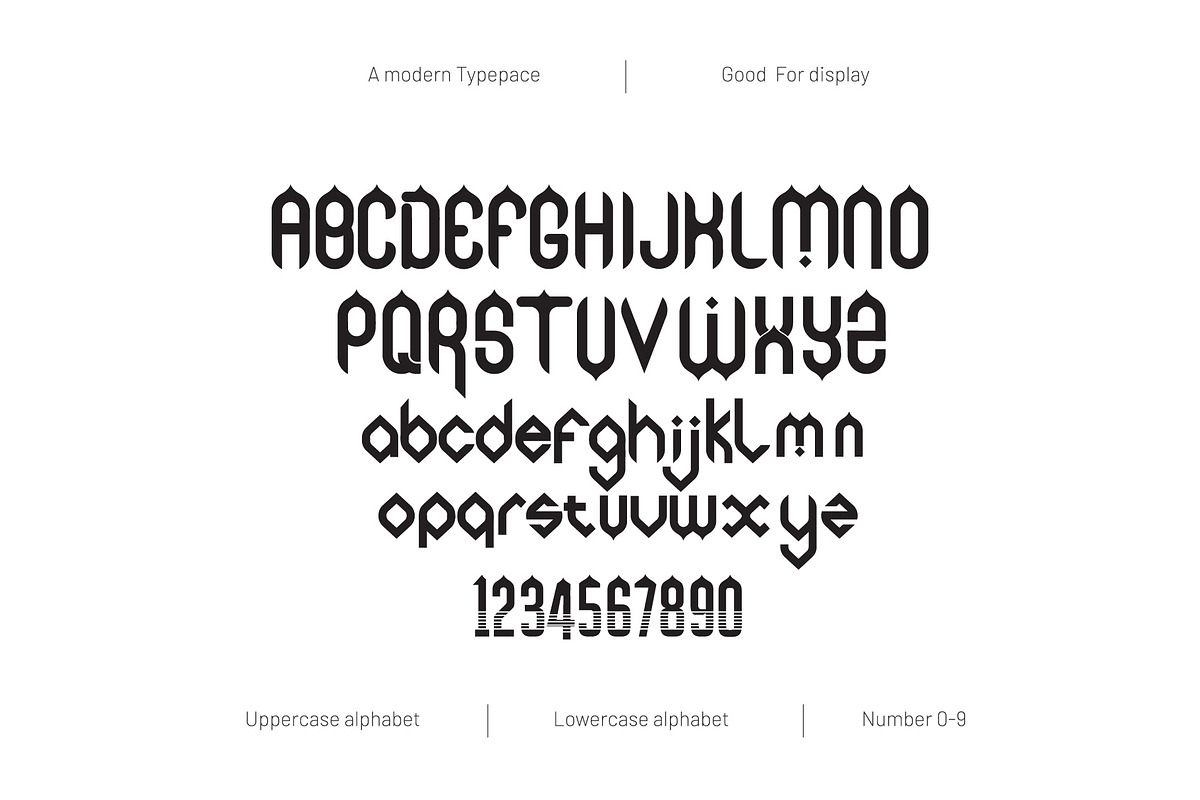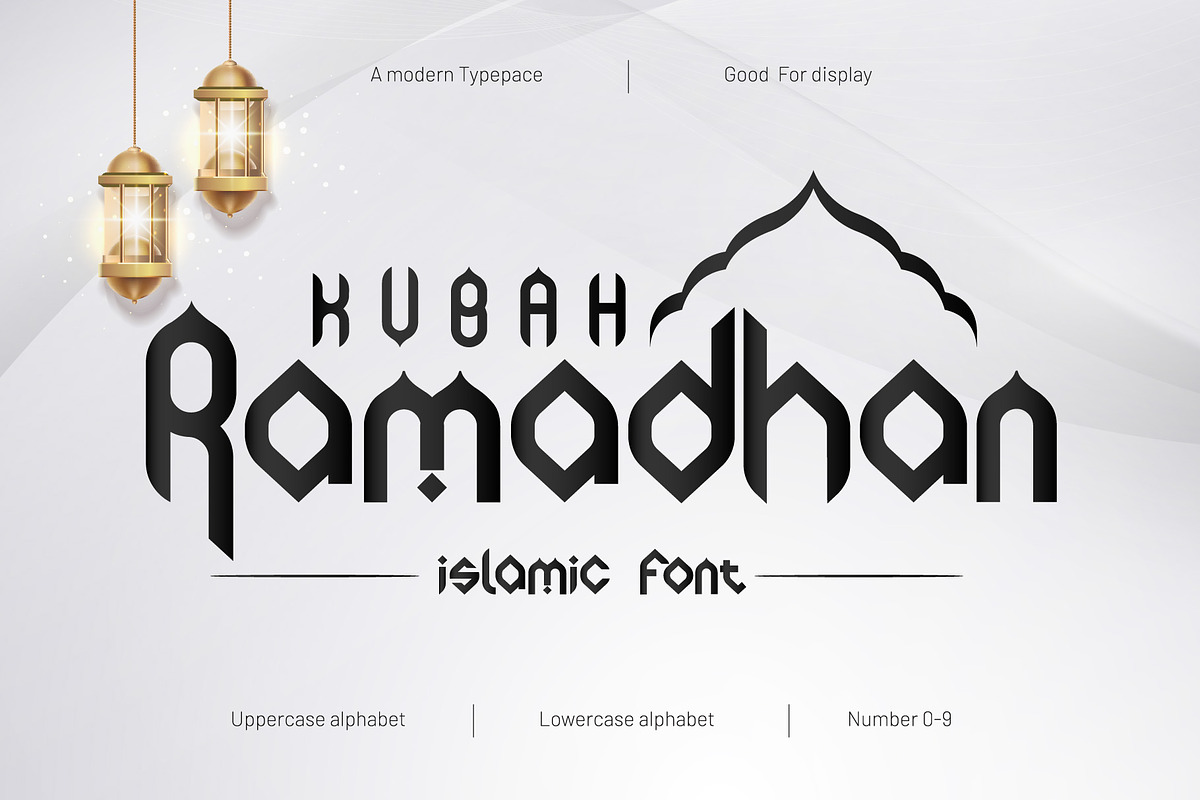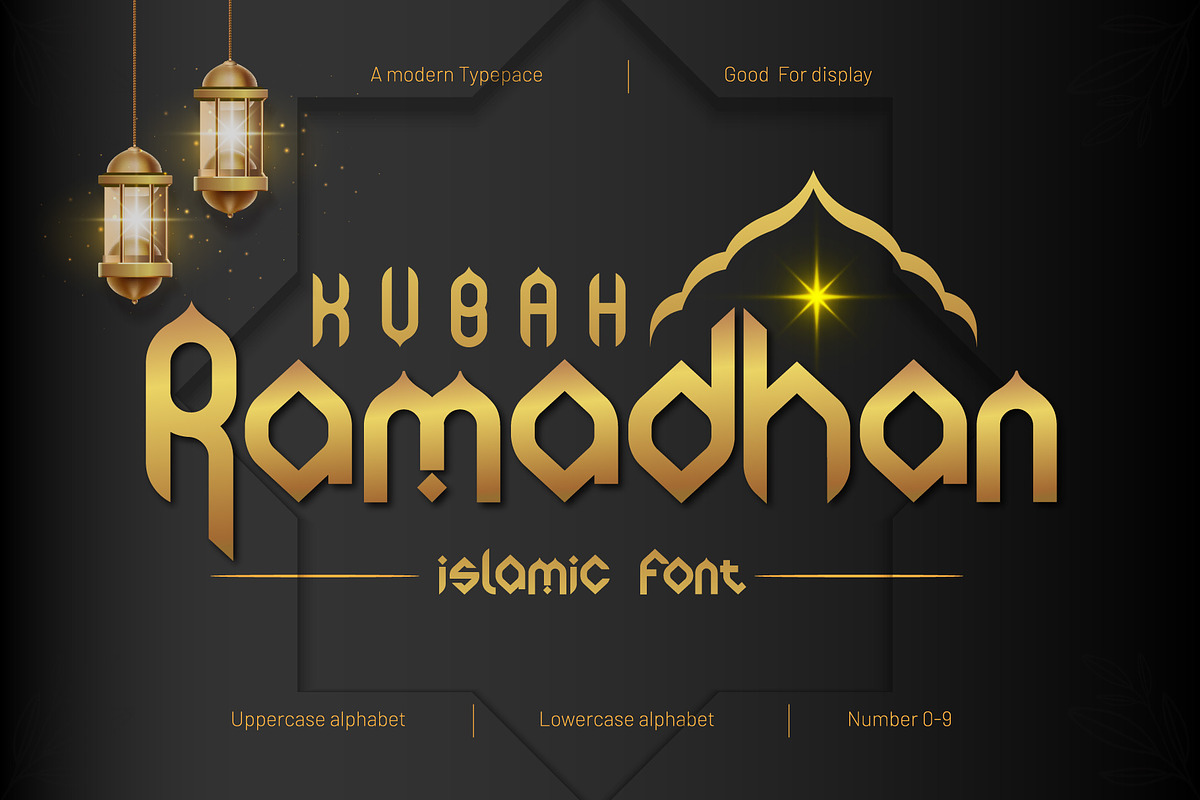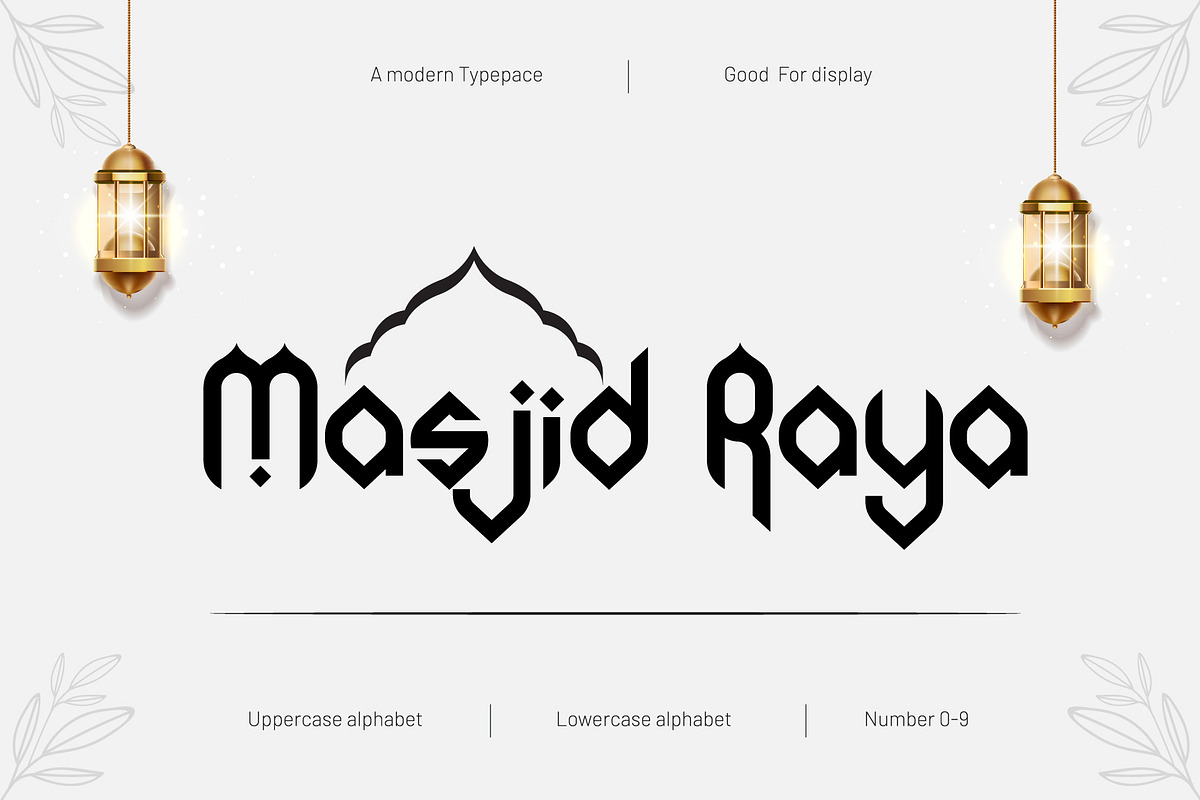
Kubah Ramadhan - Islamic Font
Kubah Ramadhan is a font for Islamic themes, this font consists of uppercase, lowercase letters and numbers without symbols, very suitable for islamic banners, posters, flyers and others
- uppercase
- lowercase
- number 0 - 9
- no symbol